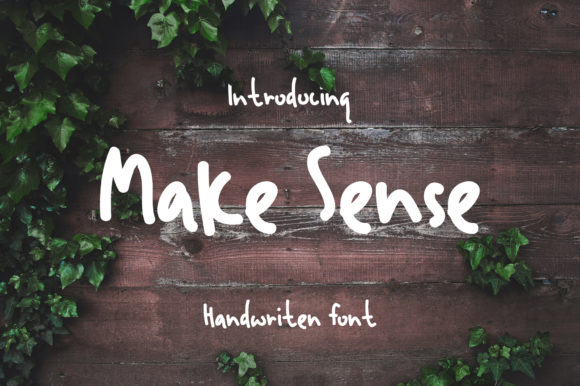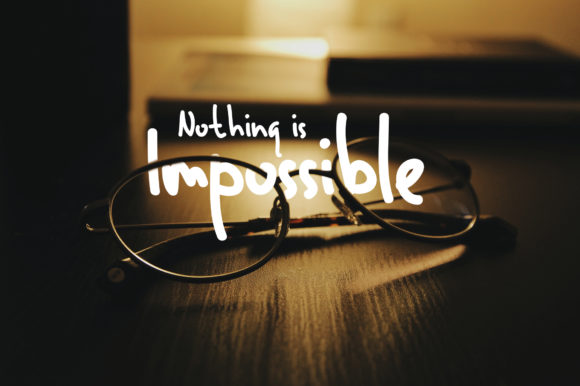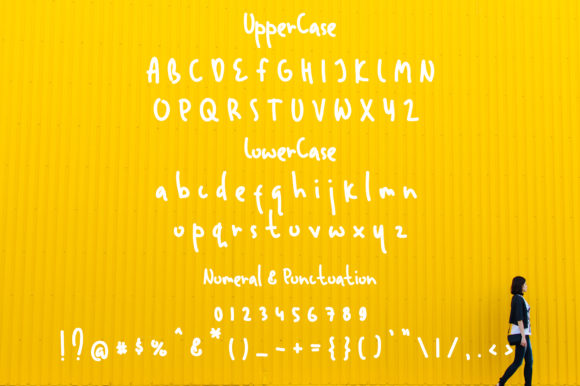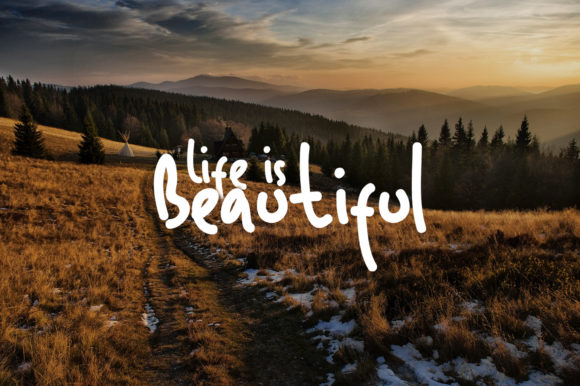
Make Sense Font
About Make Sense Font
Make Sense is a beautiful and handwritten font with lots of charm! It will add a spark of authenticity to any design project.